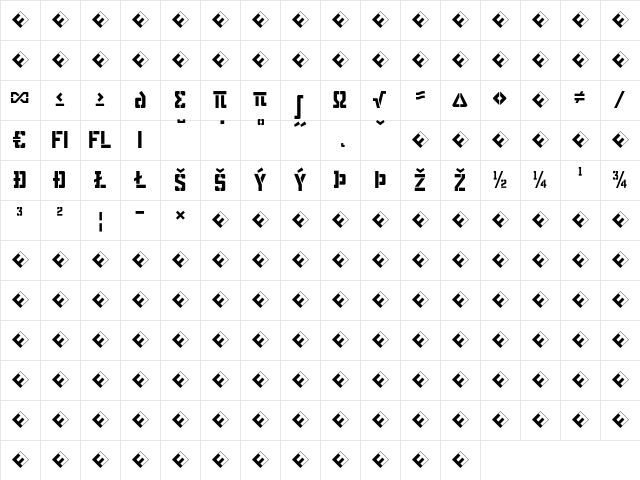
WaterTower CapitalsExpert Free Font
WaterTower CapitalsExpert
Style: CapitalsExpert
Design Context for WaterTower
WaterTower is a composed and adaptable typeface that performs quietly and consistently across a wide range of design contexts.